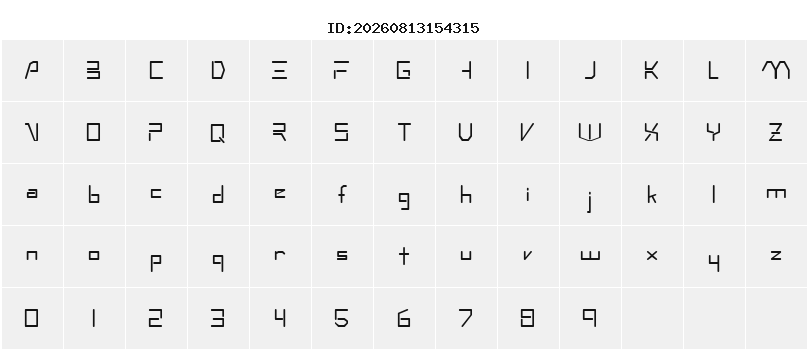
• Font Name: RSAndromeda
• Font ID: FontMonger:RSAndromeda Medium
• Full Font Name: RSAndromeda Medium
• Version: 001.001
• PostScript Name: RSAndromedaMedium
About RSAndromeda.ttf
RSAndromeda.ttf is a modern, elegant sans-serif font designed for ultimate readability and visual harmony. Perfect for branding, headlines, web design, and print materials.